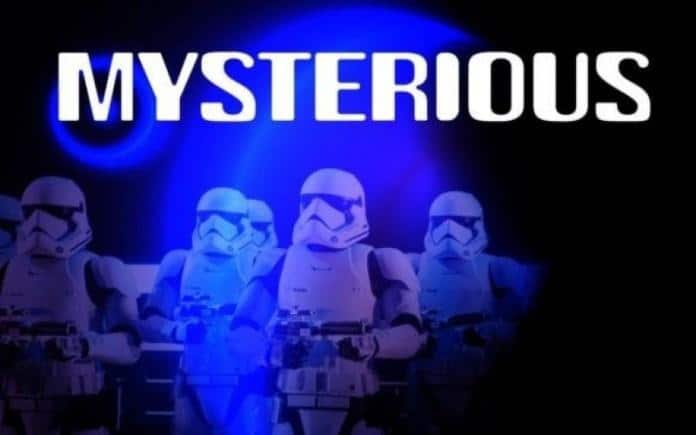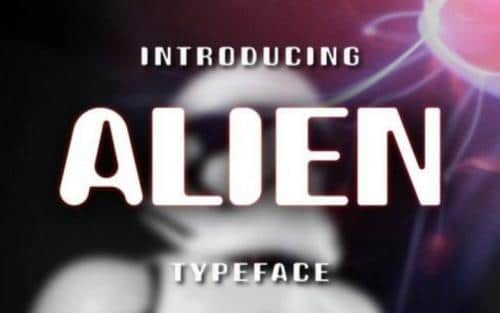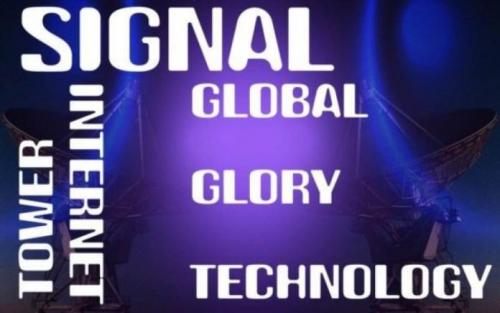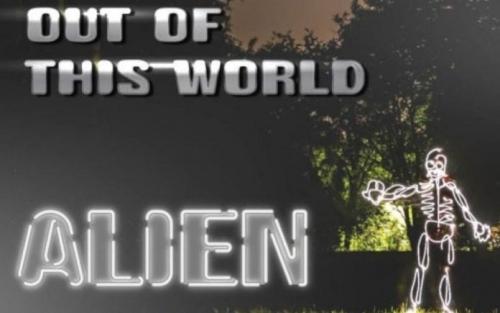
Alien Font is a bold, authentic and futuristic display typeface. This type of font perfectly made to be applied especially in headlines which is need a standout font, and the other various formal forms. Add this font to your creative ideas and notice how it will make them stand out!